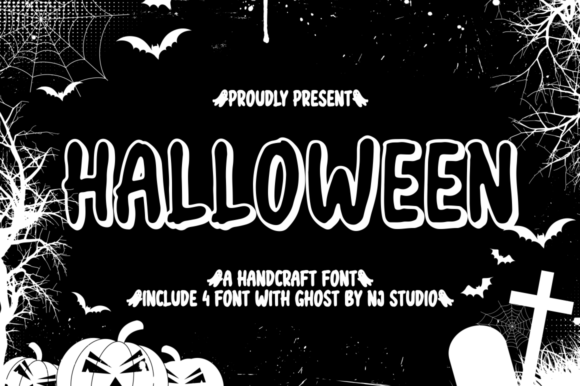
Halloween Font: Unleashing the Spirit of Spooky Season
As a designer, have you ever found yourself stuck in a creative rut, yearning for that perfect font to bring your Halloween project to life? You’re not alone. We’ve all been there, scrolling through font libraries, searching for that one font that captures the essence of the spooky season.
Enter Halloween Font, a handcrafted display font that’s sure to cast a spell on your audience. This font features a delightful array of Halloween-themed characters, from ghosts and goblins to jack-o’-lanterns and black cats. With its playful and eerie vibe, Halloween Font is the perfect addition to any design project, whether it’s a spooky social media post, a Halloween-themed logo, or a festive flyer.
Halloween Font Key Features
- Unique Characteristics: Halloween Font features a spooky and eerie aesthetic, with intricate details and textures that evoke a sense of mystery and suspense.
- Character Set: The font includes a comprehensive set of characters, including uppercase and lowercase letters, numbers, and special symbols, making it suitable for a wide range of applications.
- Font Style: Halloween Font is available in a bold, condensed style, perfect for creating striking headlines and titles that grab attention.
Halloween Font Review
As a designer, I was excited to dive into the Halloween Font and see if it would live up to its spooky name. Here are my honest thoughts.
- The font’s unique and playful design makes it perfect for adding a touch of Halloween spirit to your designs.
- The font comes in a variety of weights and styles, allowing you to customize it to fit your specific needs.
- The font is highly customizable, with options for adjusting font size, color, and spacing.
- The font may not be suitable for formal or professional designs, as it can come across as too playful or gimmicky.
- The font’s design may not be suitable for all types of content, such as body text or long-form articles.
The Halloween Font is a fun and creative option for adding a touch of Halloween spirit to your designs. While it may have some limitations, it’s perfect for designers looking to create spooky or playful content. I would recommend this font for designers who are looking to add a unique touch to their designs, but may not be suitable for more formal or professional projects.
To get the most out of the Halloween font, try combining it with spooky graphics and colors. Use it for invitations, posters, and other Halloween-themed materials.
The Halloween font is perfect for:
- Halloween invitations and party materials.
- Spooky social media posts and graphics.
- Halloween-themed merchandise and decorations.